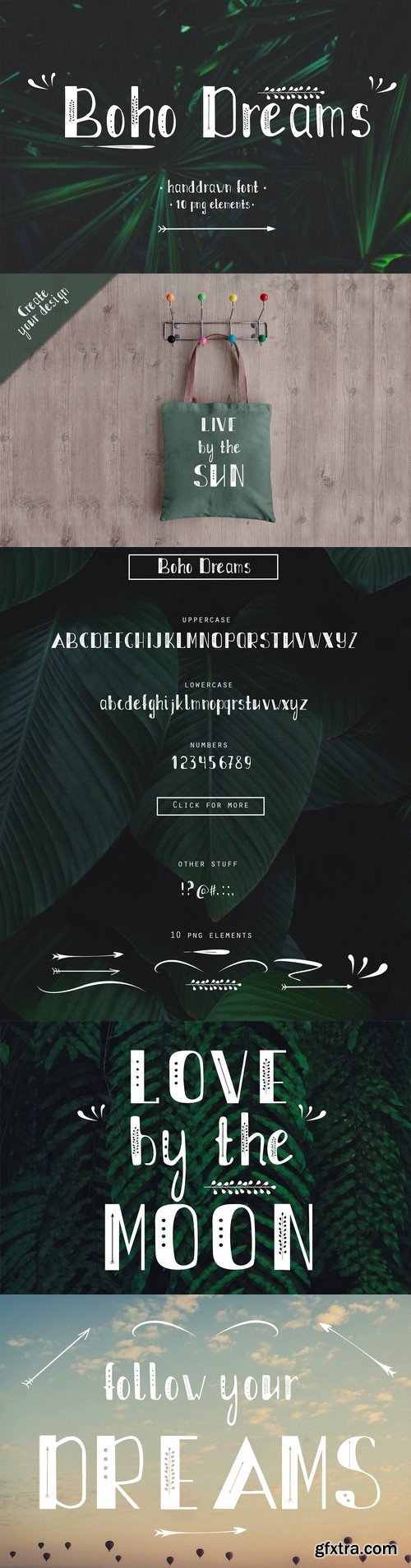
Thanks for checking out Boho Dreams font! Use in combination with each other to make awesome type designs for logos, posters, album covers, packaging and wedding invitations! Set of lowercase & uppercase letters. No special software required to access extra characters, instruction for Mac and Windows included! Boho font has lots of curves lines & unperfect lines for natural, organic and totally handdrawn look.